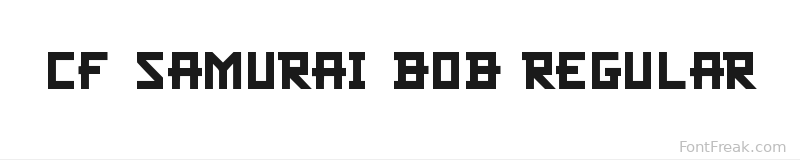
CF Samurai Bob Regular
CF Samurai Bob Regular by Cloutierfontes is a striking display font that captures attention with its unique visual style. This font is characterized by bold, blocky letterforms that exude a sense of strength and dynamism. The stroke weight is deliberately heavy, providing a sturdy presence, while the sharp angles and geometric shapes give it a modern edge. The spacing between characters is tight, which enhances its impactful look, making it an ideal choice for headlines and titles.
This font shines in various creative applications, particularly in areas requiring a strong visual statement. It is perfect for movie posters, where dramatic typography can capture the essence of the film. Additionally, it can be used effectively in branding for tech startups, giving a futuristic feel. Restaurant menus can benefit from its bold presence, making dish names stand out, while event flyers and promotional materials will grab attention with its distinctive style. Graphic designers and content creators looking to make a memorable impression will find CF Samurai Bob Regular an invaluable addition to their typographic arsenal.
Targeted towards graphic designers, small business owners, and creative content creators, this font caters to those who want to leave a lasting impact through their visual communications. CF Samurai Bob Regular font free download makes it accessible for anyone looking to enhance their projects without the constraints of a hefty license fee.
What sets CF Samurai Bob Regular apart is its ability to combine playful creativity with functional design. Its unique aesthetic allows it to stand out in a crowded marketplace, making it not just a font, but a statement piece that can elevate any design project.